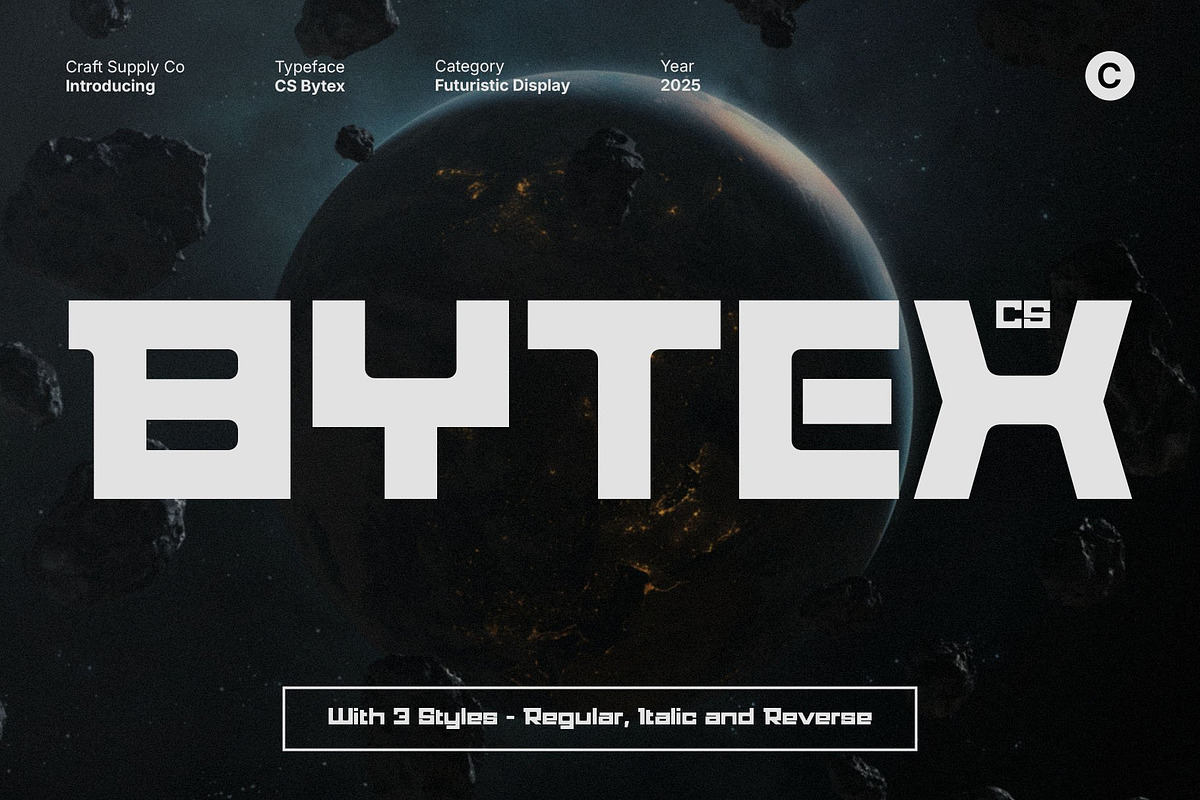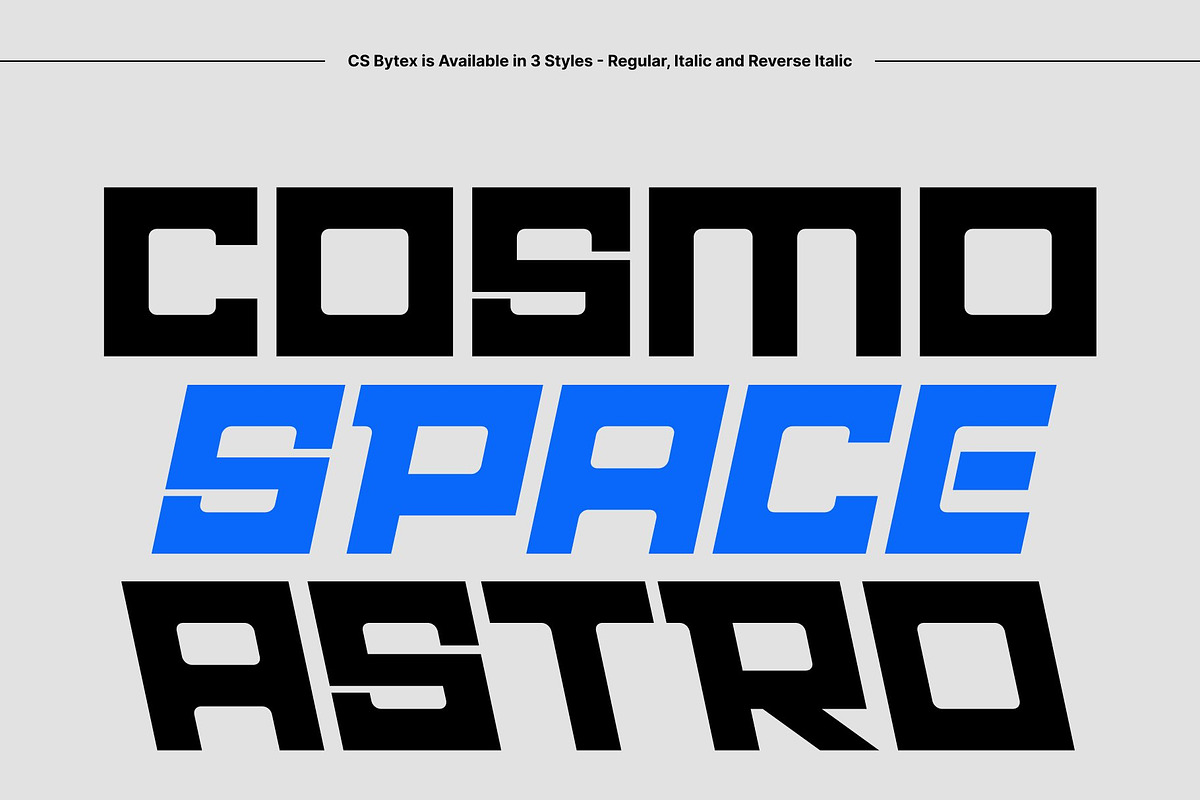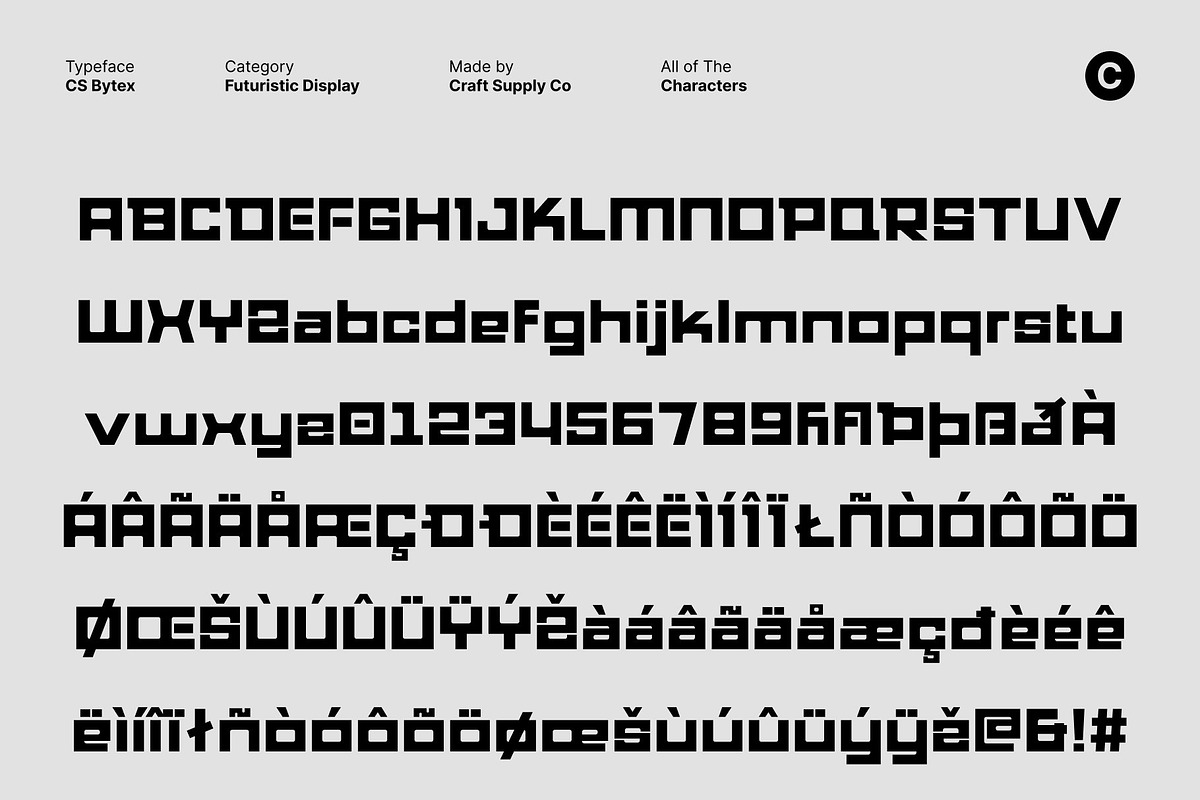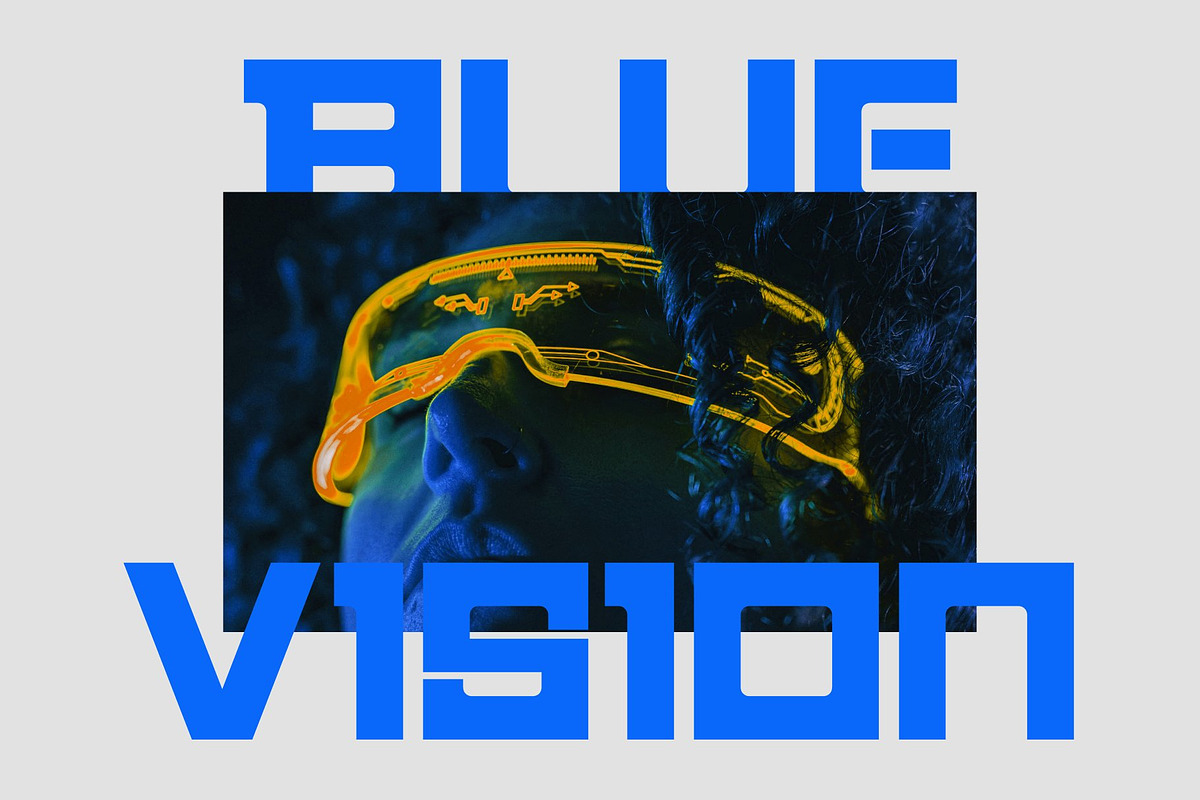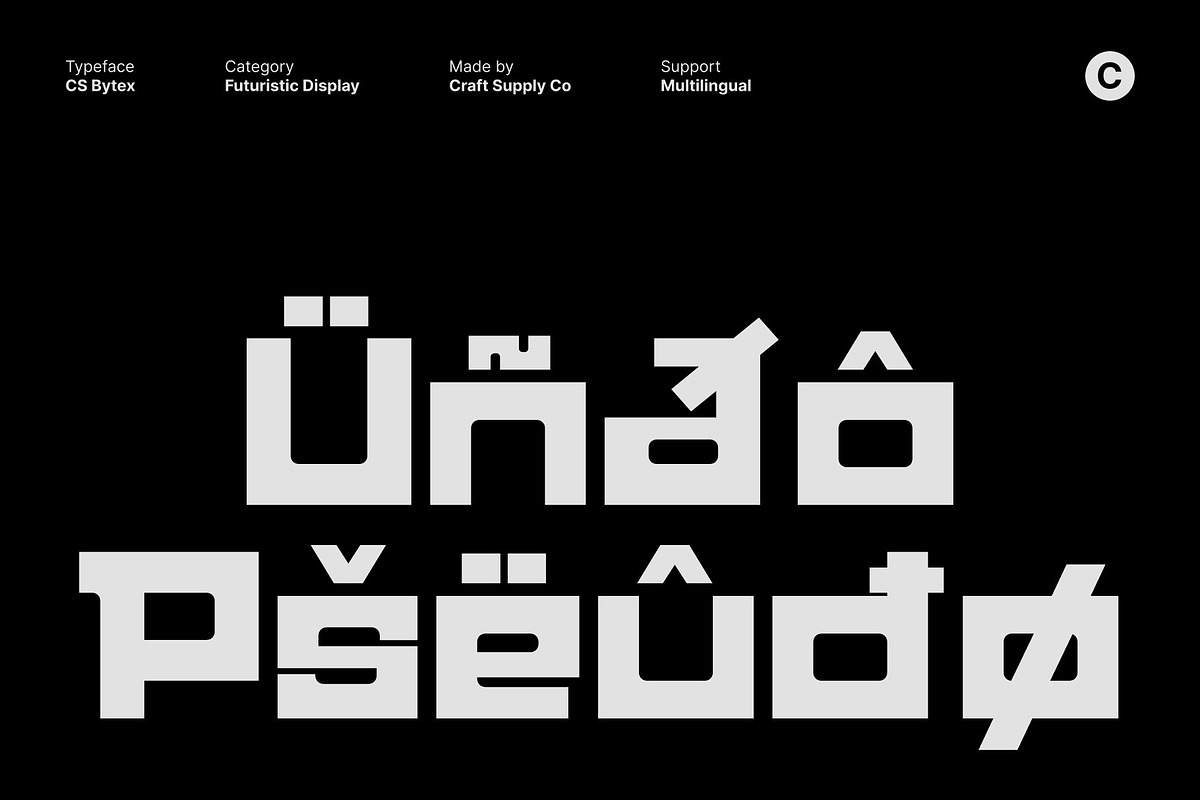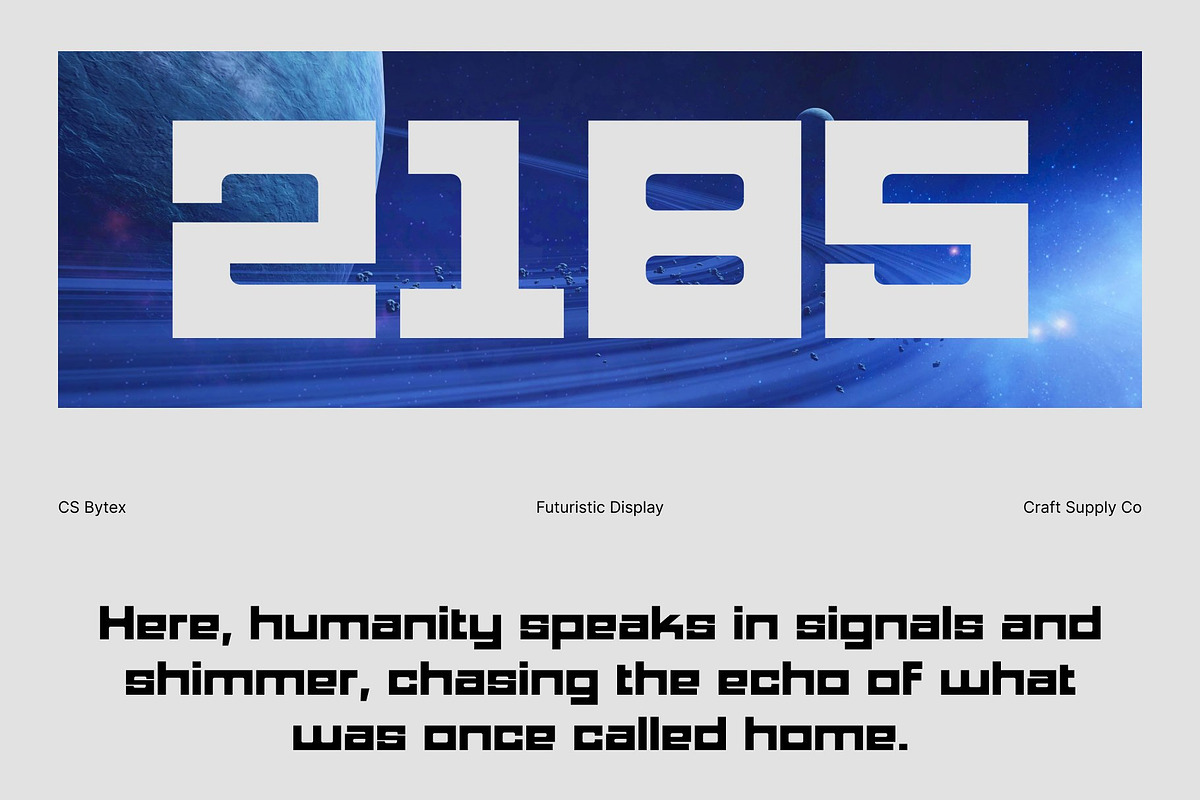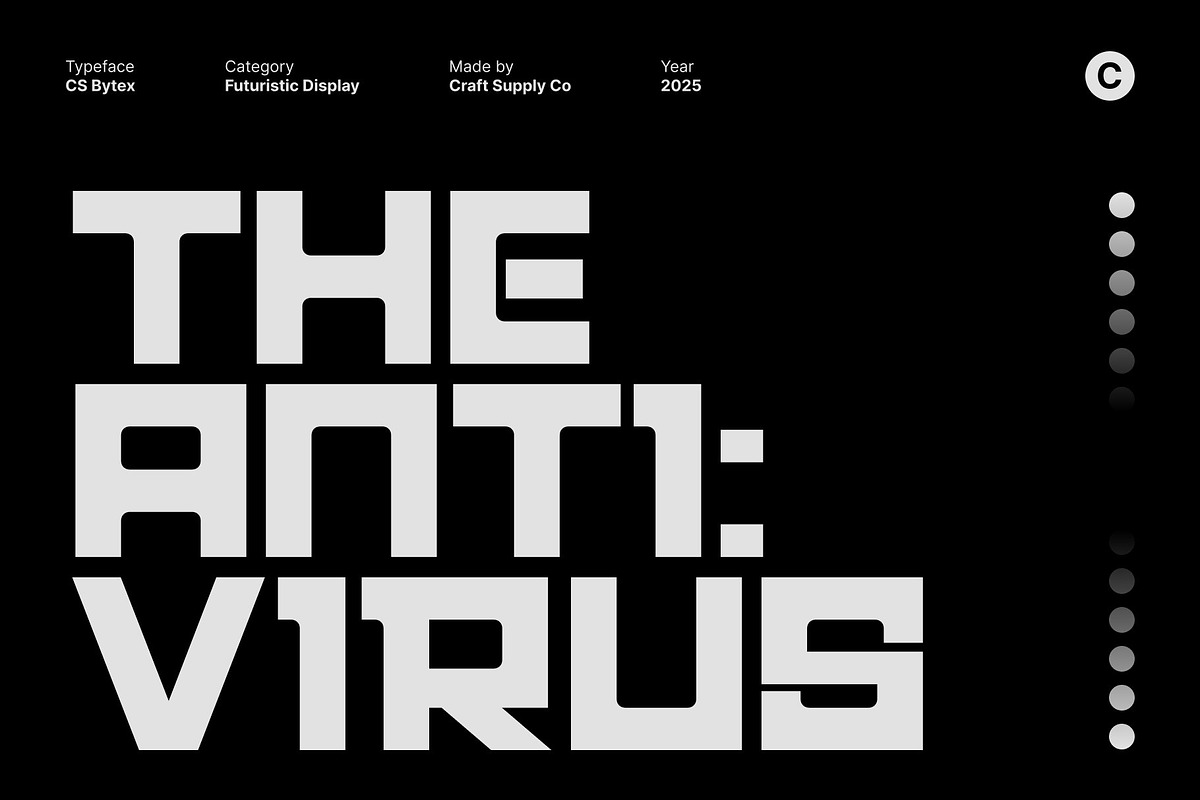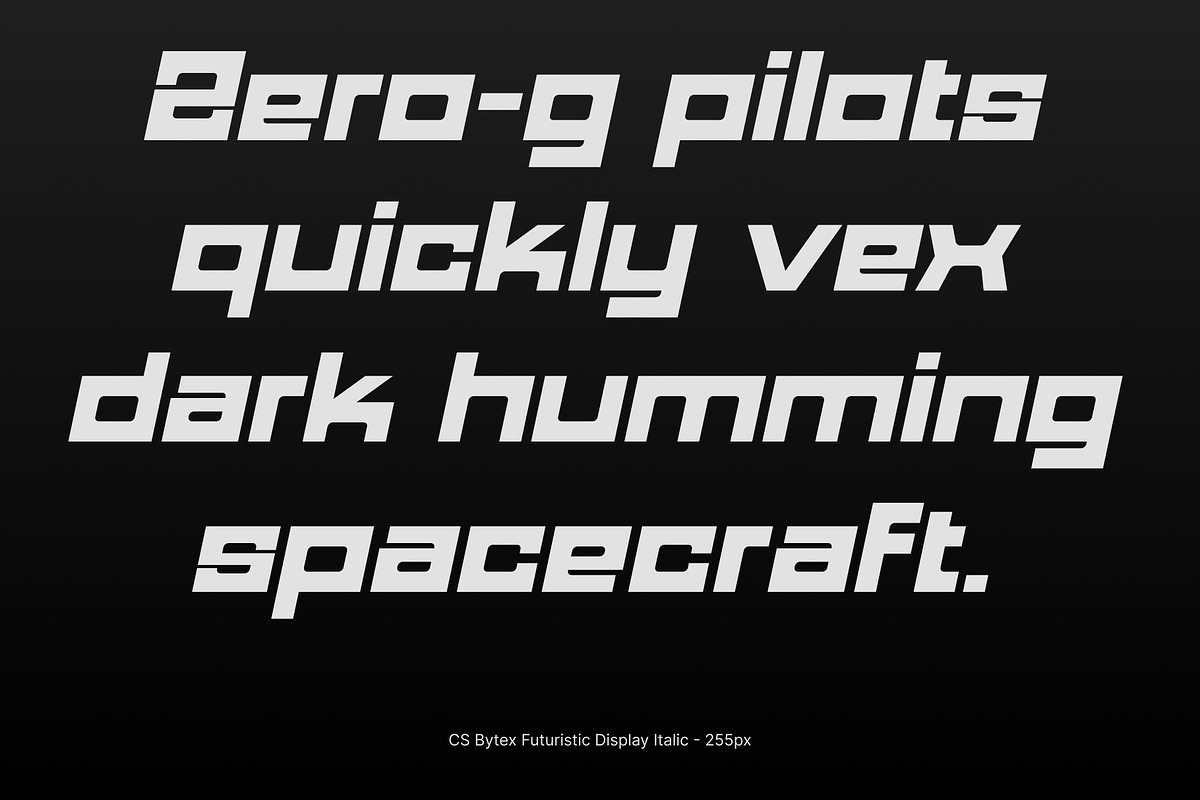
CS Bytex – Futuristic Font
CS Bytex – Bold Energy for the Digital Era
Techno-Inspired Sans Serif with Modern Precision This is a bold sans serif font that captures the essence of modern technology and digital innovation. With its clean geometry, sharp edges, and confident presence, this font embodies strength and precision. Designed for the modern world, this font delivers a futuristic aesthetic that commands attention in every visual context.
Striking Forms with a Futuristic Edge Each letter in this font is carefully crafted to balance structure and style, creating a dynamic and forward-looking design. The sharp contours and solid weight give it an assertive, high-tech feel perfect for projects that emphasize progress, innovation, and digital sophistication.
Perfect for Branding and Modern Design Projects This font shines in branding, logos, and poster designs that demand a bold and contemporary voice. Whether used for technology companies, gaming brands, or futuristic campaigns, its modern energy brings clarity and authority to every composition. It’s the ideal choice for designers who want to communicate strength and cutting-edge style.
Bold, Clean, and Unapologetically Modern More than just a font, this font is a visual statement of modern creativity. Its techno inspired foundation and strong typographic presence make it stand out across digital and print applications. Use this font to elevate your design with power, precision, and a distinctly futuristic edge.